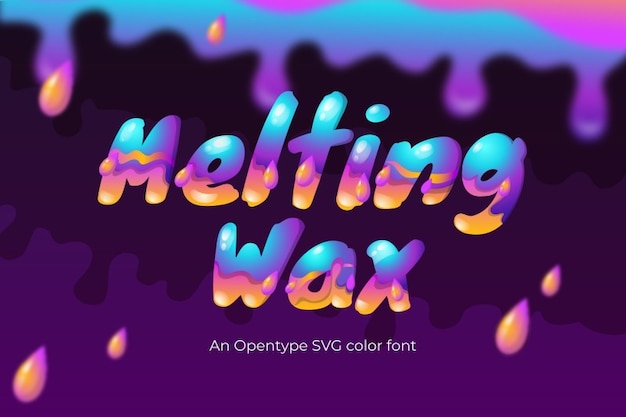
Melting Wax
Melting Wax Font
It is a font that takes you back in time with its vintage charm. Each character appears as if it's made of candle wax, slowly melting in the warmth of nostalgia. The dripping edges give it a unique, handcrafted feel, like letters formed by a flickering flame. Whether you're crafting a retro-themed project or want to infuse a touch of old-world elegance into your designs, "Melting Wax" brings that delightful vintage flair with a hint of poetic imperfection.